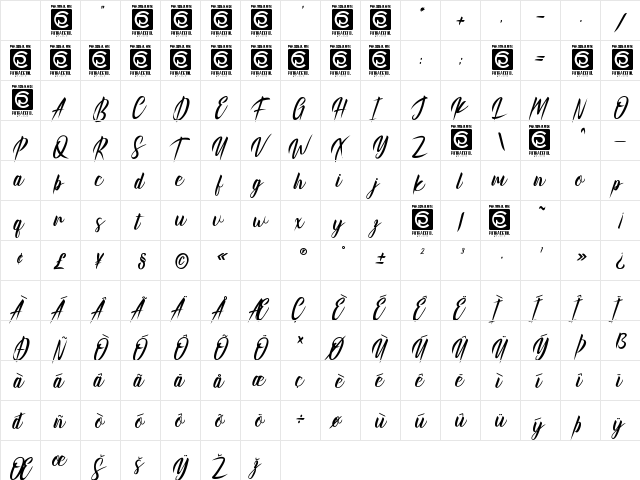
Complete Kinghawk Regular glyph index. Displaying only characters natively supported by Kinghawk Regular font.
Kinghawk is a composed and adaptable typeface that performs quietly and consistently across a wide range of design contexts.